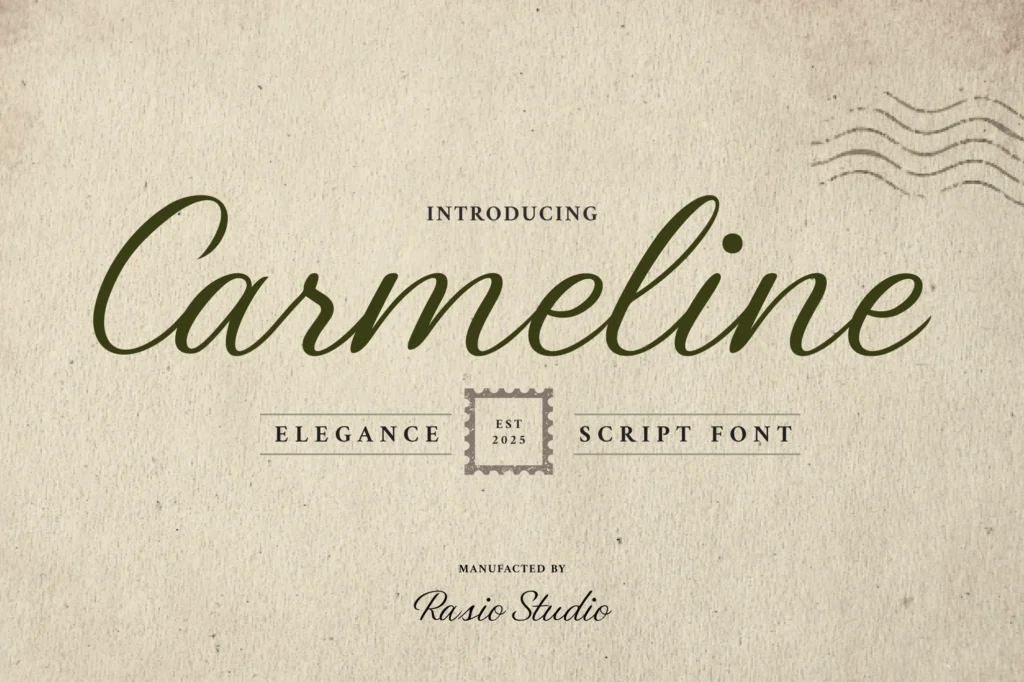
Carmeline Elegance Script Font
Carmeline Elegance Script Font presents a refined handwritten style inspired by timeless penmanship and vintage charm. Its flowing curves and graceful letterforms evoke sophistication, making it perfect for luxury branding, personal signatures, and editorial typography. The soft contrast and organic rhythm give each word a natural, romantic character suitable for both modern and classic aesthetics.